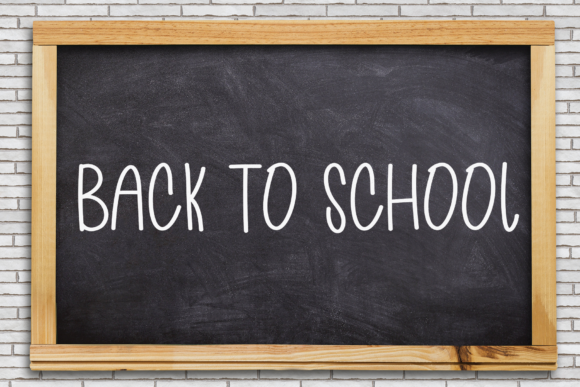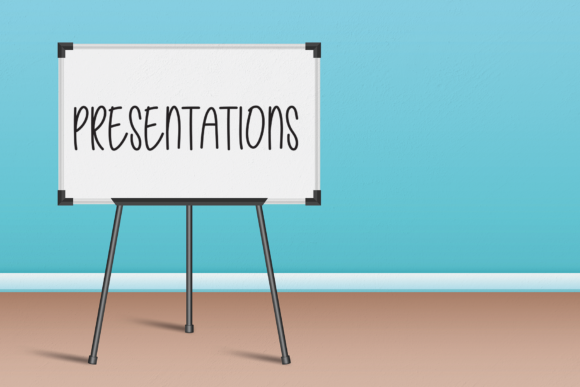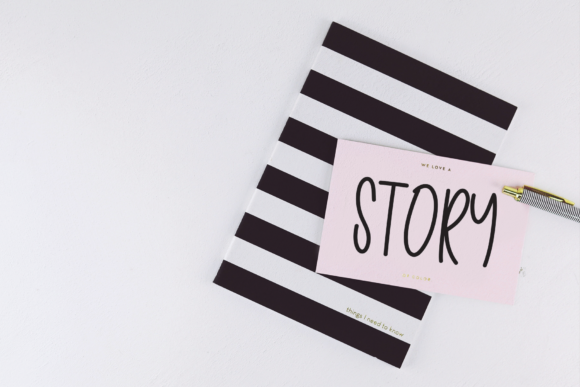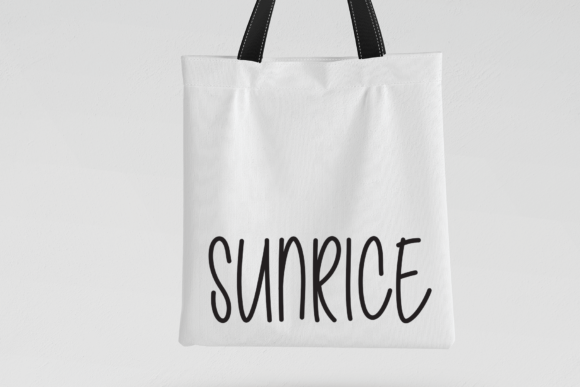
Handwriting Font
About Handwriting Font
Handwriting is a cute and friendly handwritten font. Whether you’re looking for fonts for Instagram or calligraphy scripts for DIY projects, this font will turn any creative idea into a true piece of art!